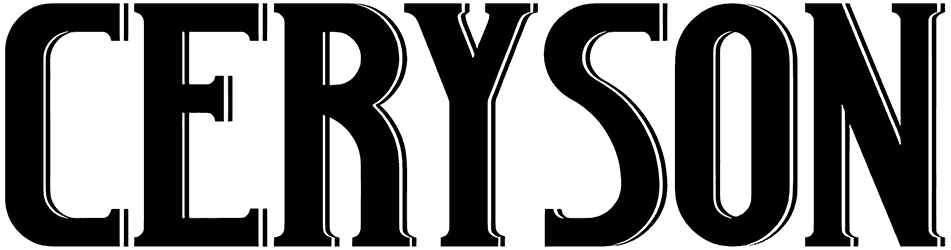
Dollar Bill Font
Need a money font for your economic situation? So Dollar Bill can be a fantastic pickup. It’s usable for banks, marketing, businesses, etc. It comes with bold and symmetrical letters. Give it a try right now and impress anyone. If you wish to get more like this serif block font, visit our boundless site as soon as possible.
Dollar Bill is an all caps font that taken / inspired from letters in dollar bill.
Available in upper/lowercase, numerals and basic punctuations.
Designed by: Twicolabs Fontdation